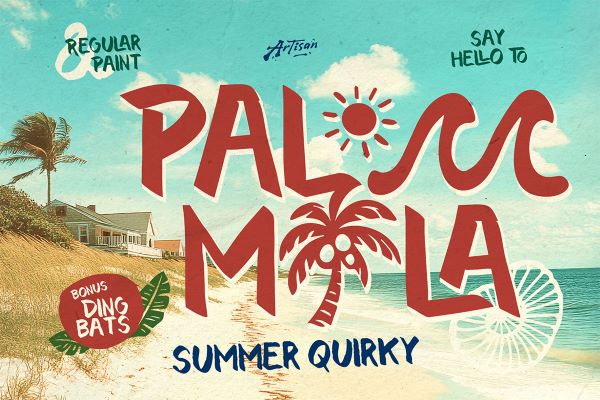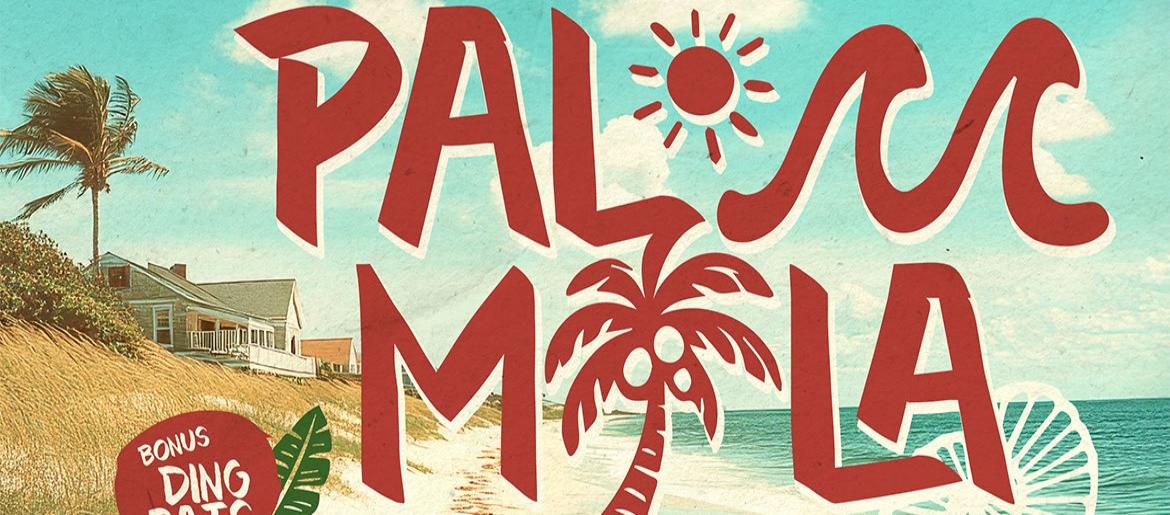
Palmila Font
Palmila by Artisan Template is a summer-spirited quirky display font that trades restraint for personality — and pulls it off with genuine charm. Its letterforms carry the loose, sun-warmed energy of hand-lettered signage: slightly irregular, full of character, and unmistakably human in touch. It works hardest in large-scale settings — headlines, posters, packaging, and event branding — where its playful construction can breathe and set a mood before a single word is read. Free for personal use.